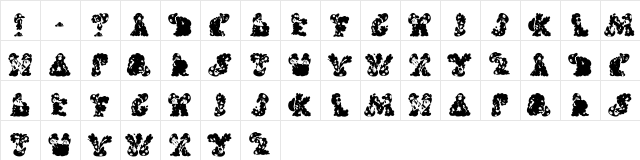
CarolsChunks Regular
Design Context for CarolsChunks Typeface
CarolsChunks is a composed and adaptable typeface that performs quietly and consistently across a wide range of design contexts.